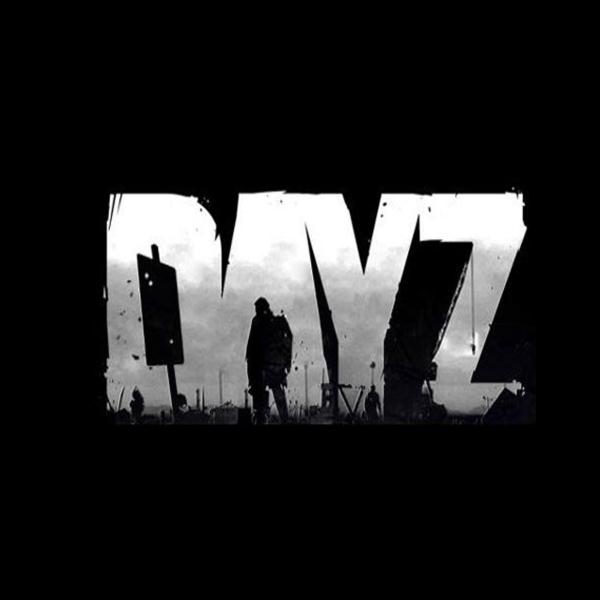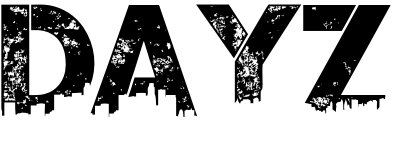
Dayz Font
Fonts in UseDayz is a survival video game that takes place in a post-apocalyptic world filled with zombies and other players, where the main objective is to scavenge for supplies and stay alive as long as possible.
To make the video game logo, one can start with Impact, a condensed sans-serif typeface by Geoffrey Lee in 1965. For a similar worn look, try free options like 28 Days Later and Urban Jungle from KC Fonts, which are available for free download from the Fonts Used section.